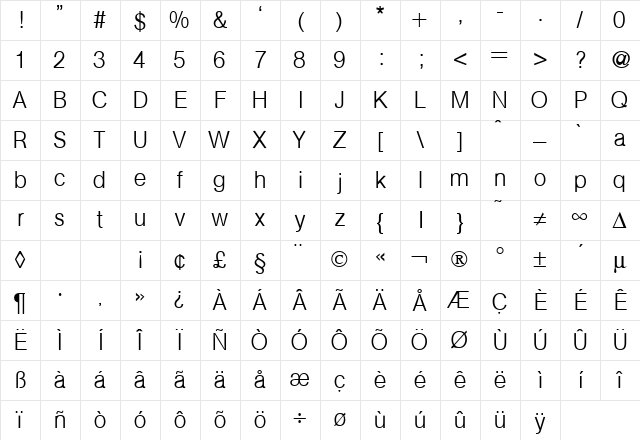
AtkinsLight Regular
AtkinsLight Family
Design Context for AtkinsLight
AtkinsLight is a composed and adaptable typeface that performs quietly and consistently across a wide range of design contexts. Its slender proportions lend an understated elegance to any composition.